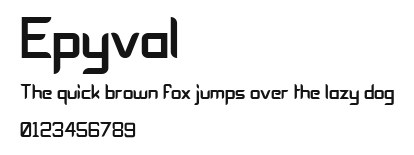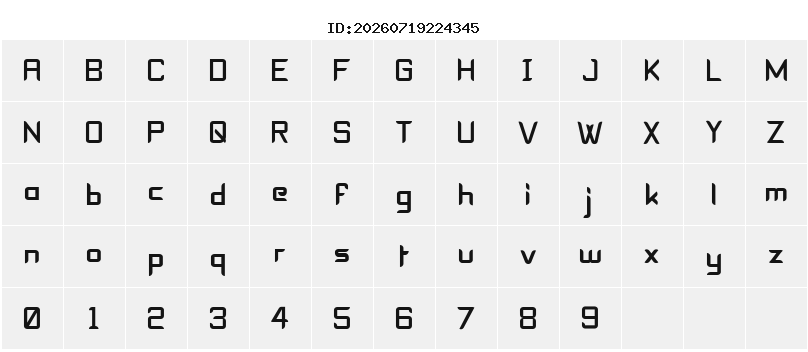
• Font Name: Epyval
Epyval.ttf is a modern, elegant sans-serif font designed for ultimate readability and visual harmony. Perfect for branding, headlines, web design, and print materials.